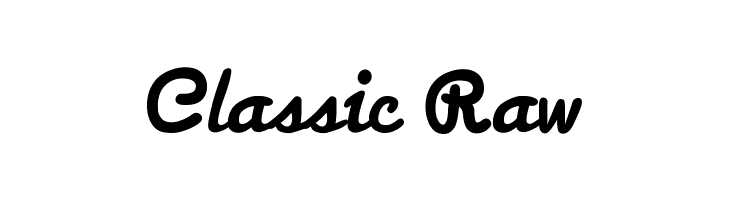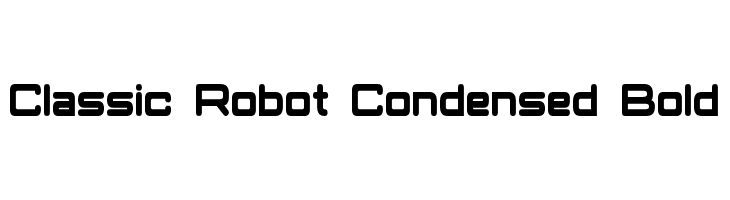
A bold, dripping font perfect for horror-themed designs.
A bold, cursive font with a playful and dynamic handwritten style.
A futuristic, geometric font with rounded edges and uniform strokes.
A bold, futuristic font with rounded edges and geometric structure.
A bold, italicized font with a futuristic and sleek design.
A futuristic, condensed font with rounded edges and a mechanical aesthetic.
A bold, condensed font with a futuristic, robotic style.
A futuristic, bold, and italicized font with a condensed, modern design.
A futuristic, condensed italic font with sleek, geometric lines.